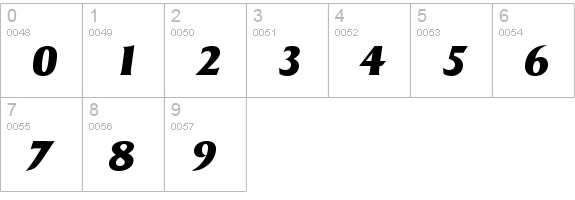
Sigvar-HeavyIta is a stunning and versatile font that exudes a sense of strength and elegance. With its bold and italicized letterforms, this typeface is perfect for adding a touch of sophistication to any design project. Whether used for headlines, logos, or body text, Sigvar-HeavyIta commands attention with its commanding presence. This font features a unique combination of sharp angles and graceful curves, creating a harmonious balance that captures the eye. Each letter is meticulously crafted, resulting in a seamless flow from one character to the next. The thick strokes give it a solid and powerful appearance, while the slight slant adds a touch of dynamism and movement. Sigvar-HeavyIta is not only visually striking but also incredibly versatile. It can effortlessly adapt to various design styles, whether it be modern, retro, or even futuristic. Its strong presence and distinctive characteristics make it a perfect choice for branding, advertising, editorial design, and more. And the best part? Sigvar-HeavyIta is available for free download at FontsMarket.com. This means that designers and enthusiasts alike can easily access and utilize this remarkable font in their projects without any cost. With just a few clicks, you can bring the power and elegance of Sigvar-HeavyIta to your designs. So why wait? Enhance your designs with the captivating allure of Sigvar-HeavyIta. Download it for free at FontsMarket.com and experience the endless possibilities it offers.